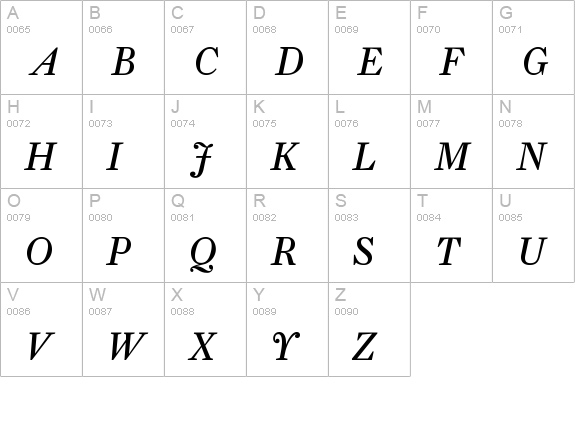
FarnhamDisplay-RegularItalOSF Font Details
FarnhamDisplay-RegularItalOSF is a stylish and sophisticated font that exudes elegance and charm. Its italic style adds a touch of flair to any design, making it perfect for projects that require a touch of class. The open type small caps provide versatility and uniqueness to your text, giving it a refined and professional appearance. This font is not only visually stunning but also highly functional, making it suitable for a wide range of design purposes, from branding to editorial design. Whether you are creating a logo, poster, or publication, FarnhamDisplay-RegularItalOSF will surely elevate your work to the next level. The best part is that this font is available for free download at FontsMarket.com. So if you are looking to add a touch of sophistication to your designs without breaking the bank, be sure to check out FarnhamDisplay-RegularItalOSF.